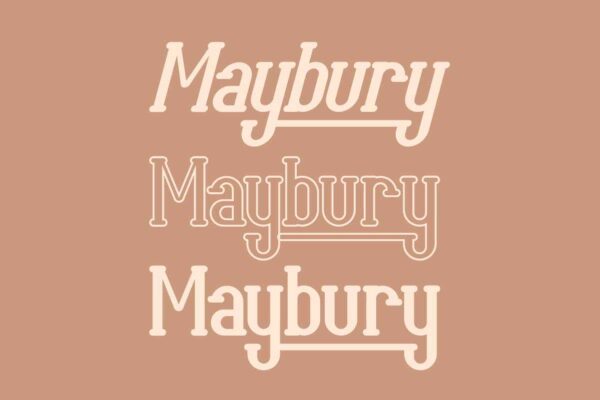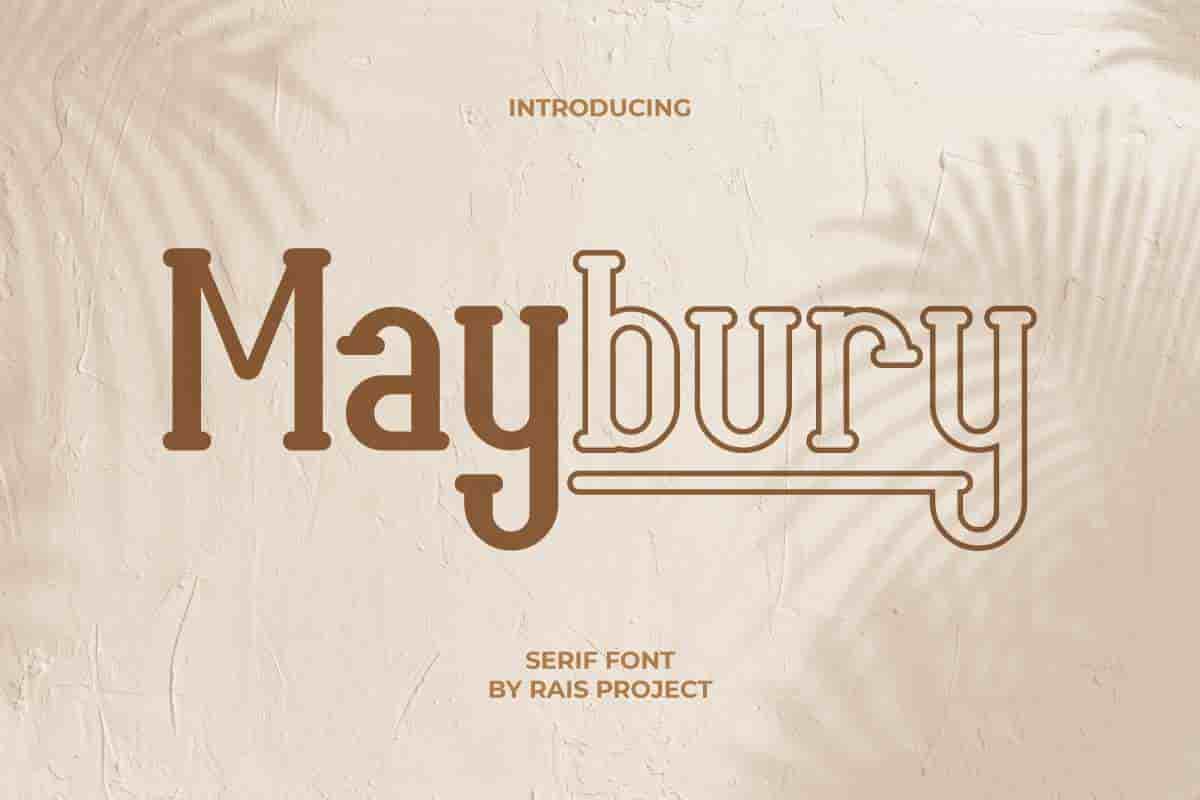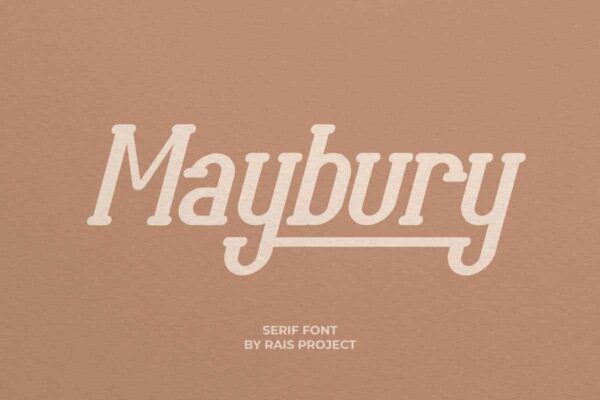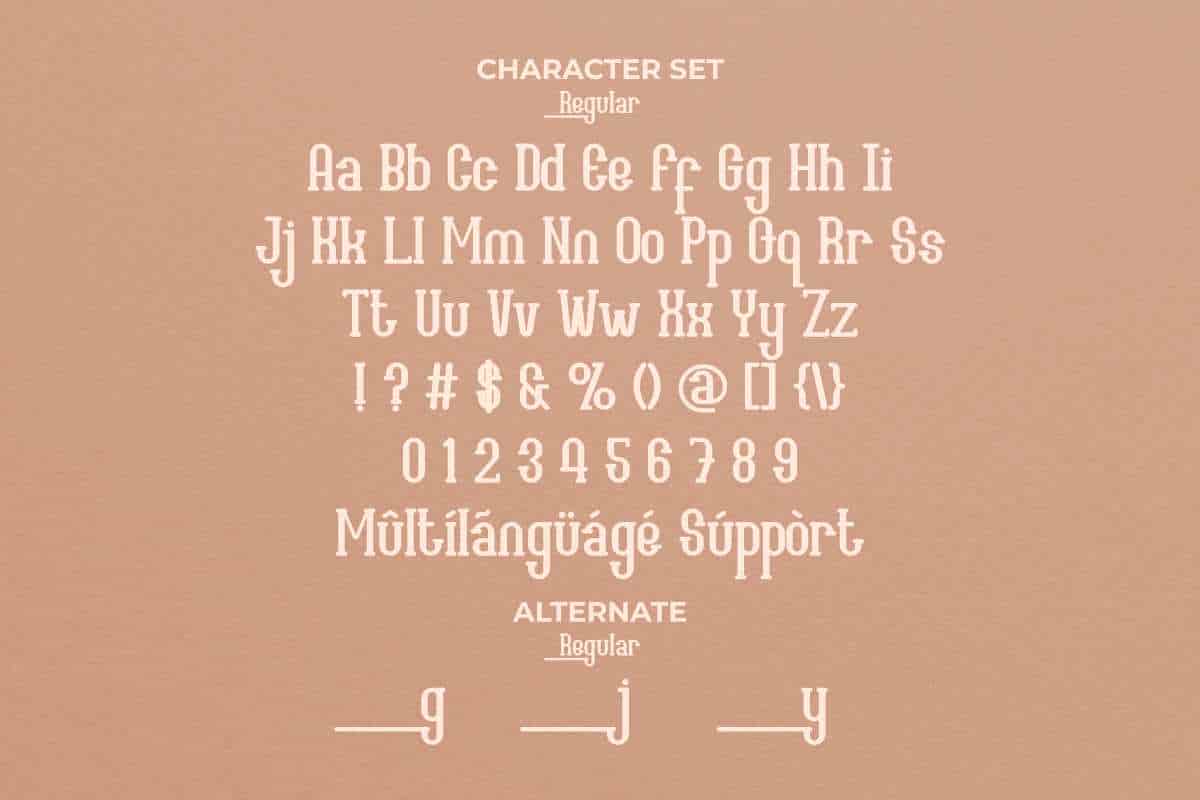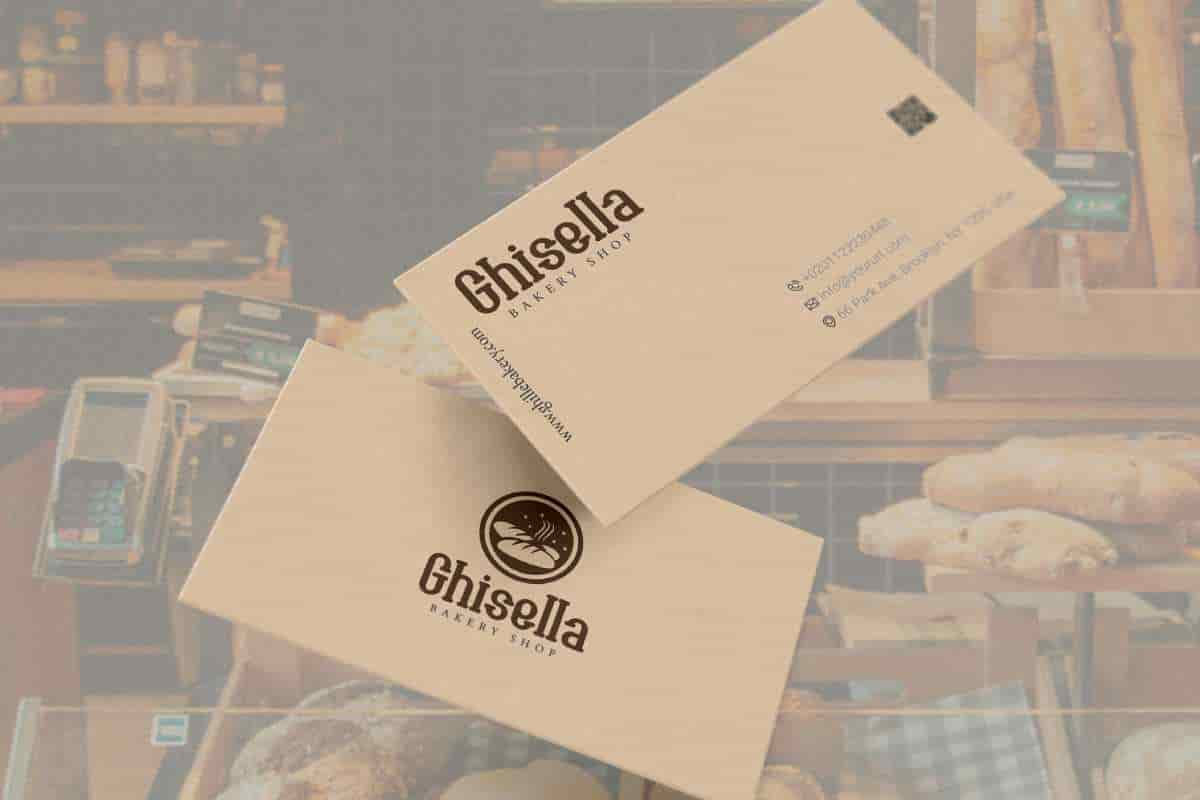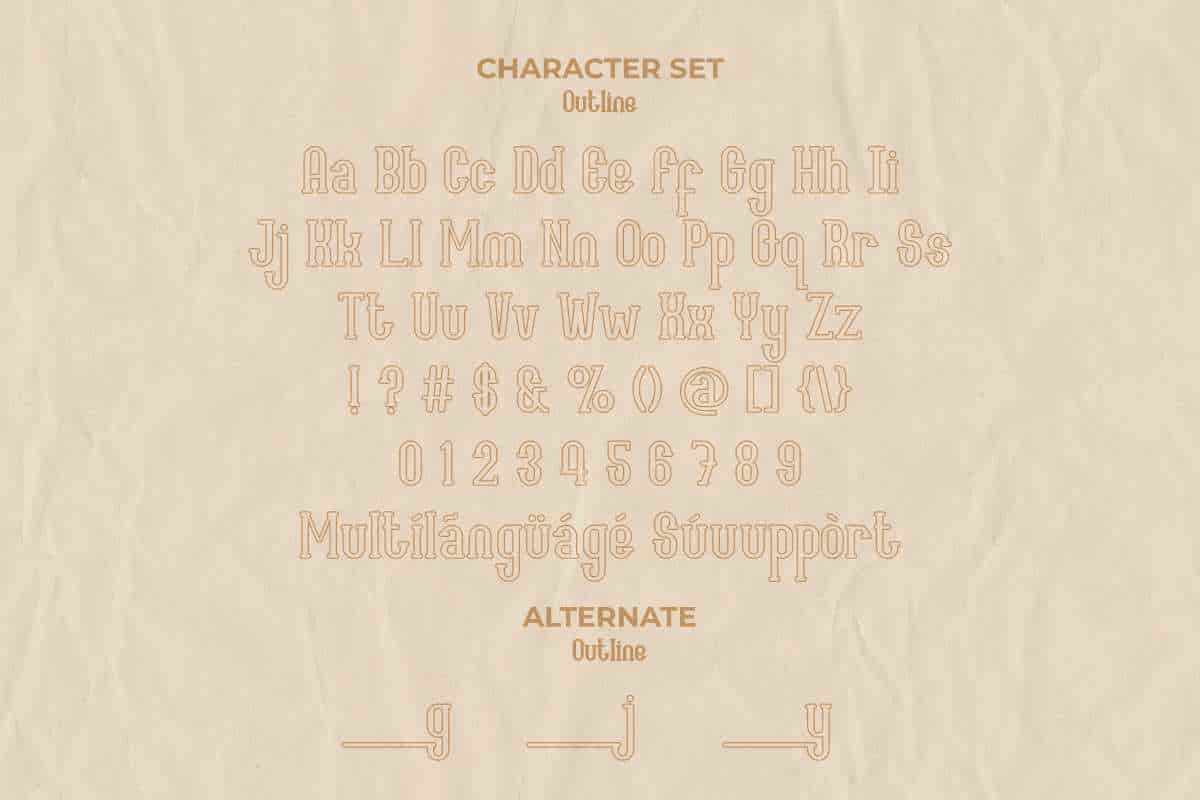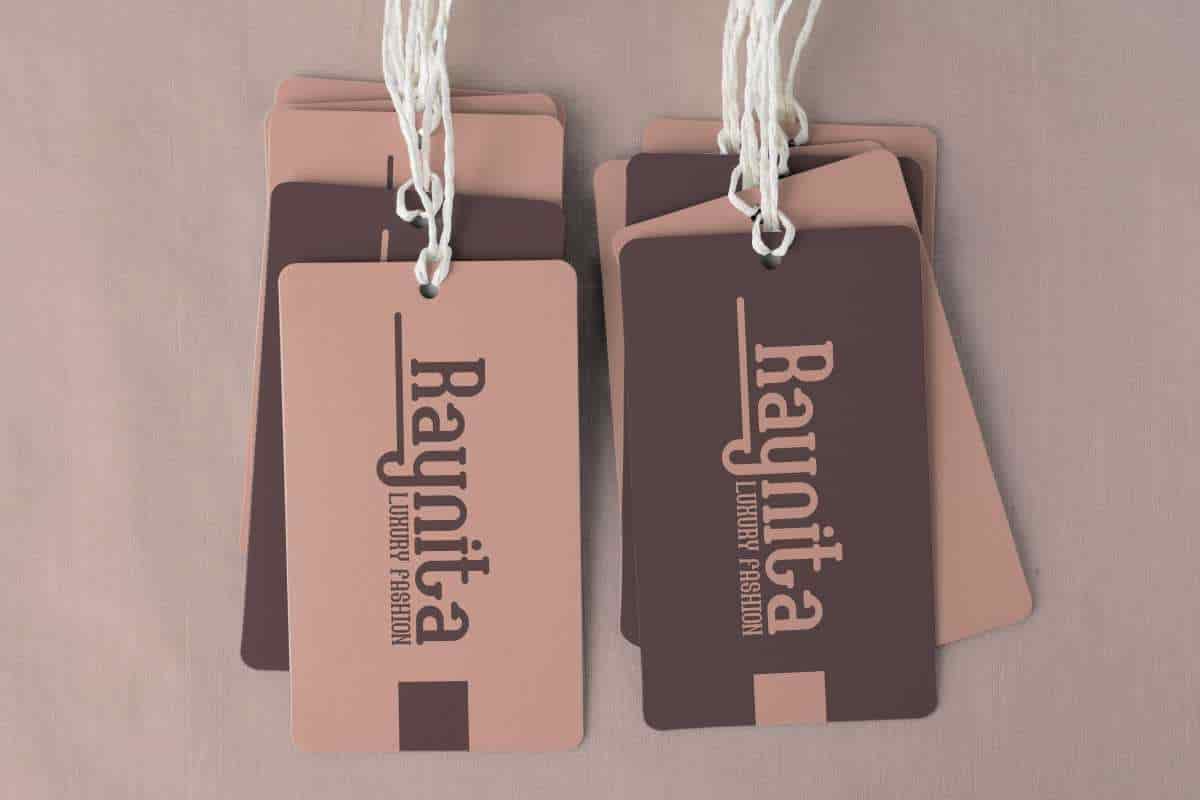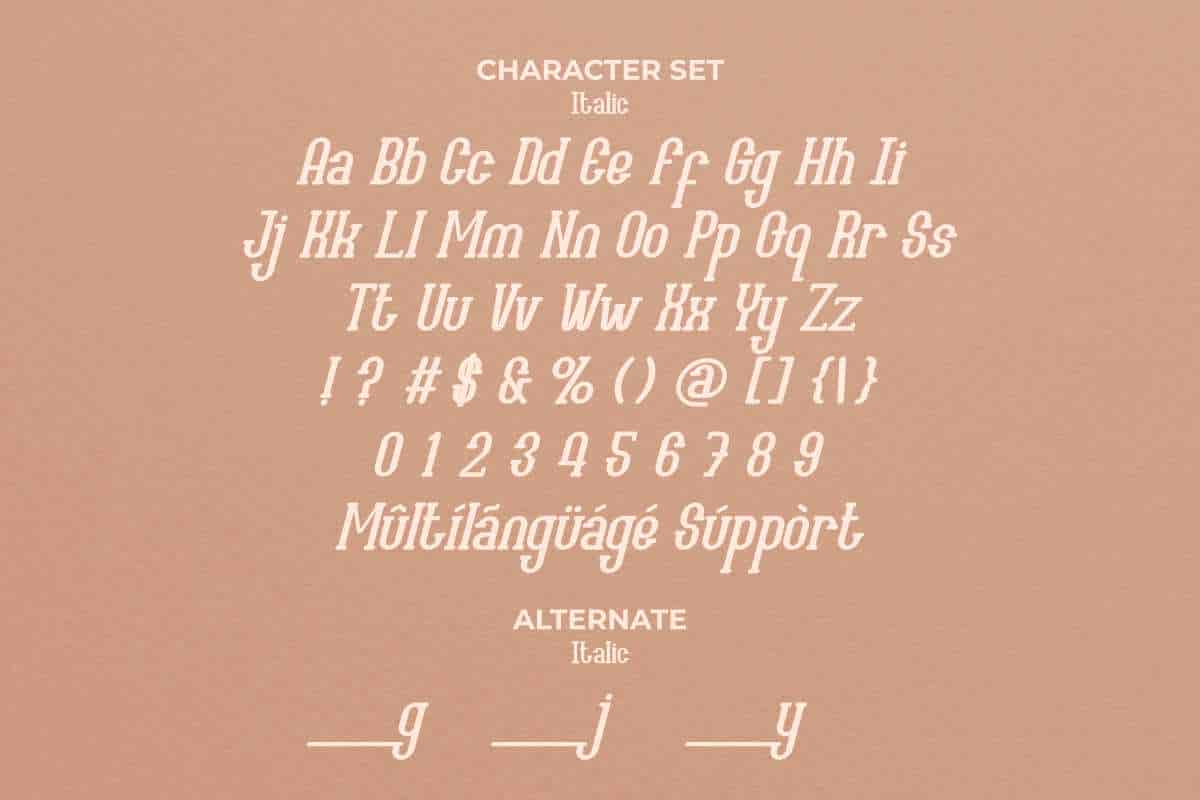
Maybury Serif Font
Maybury Font is a casual serif font designed by Rais Project. The font has unique style that is great for Restaurant, Game, Magazine, Music, Fashion industry etc
Maybury Font is a casual Serif font family, inspired from vintages posters , designed by RaisProject. The font has unique, casual and stylish style. You can see the demo font below. You can also input any word you want so you can see what it will look like :
Maybury Font designed by RaisProject team in Indonesia,The industries for this font is Finance, fintech, Startup, Automotive, Apps, Cosmetic, Beauty, Technology, Game, Magazine, Music, Sport etc Maybury Serif Font comes with three styles : Regular, outline and Italic. The font includes full set of gorgeous uppercase and lowercase letters ,numerals and Multi languages characters. The font also come with artistic ligatures to make it looks really great and unique. On the package You will get: